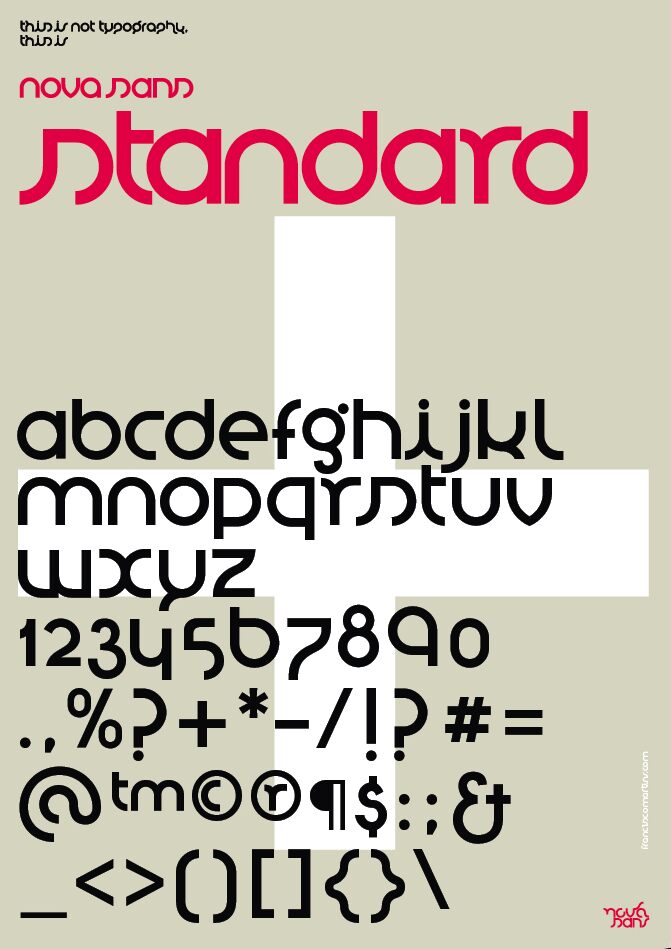
Stnovasans by Francisco Martins is a free futuristic geometric sans serif with broad circular forms and clean, engineered strokes. Rounded letters are interrupted by sharp vertical cuts, giving the design a sleek but slightly unconventional silhouette.
Technology and electronic music audiences will recognize its streamlined, space-age cues. It suits app branding, album artwork, and event posters, using its constructed forms to suggest digital interfaces. For product identity, the open curves and abrupt joins could become a recognizable logo device.